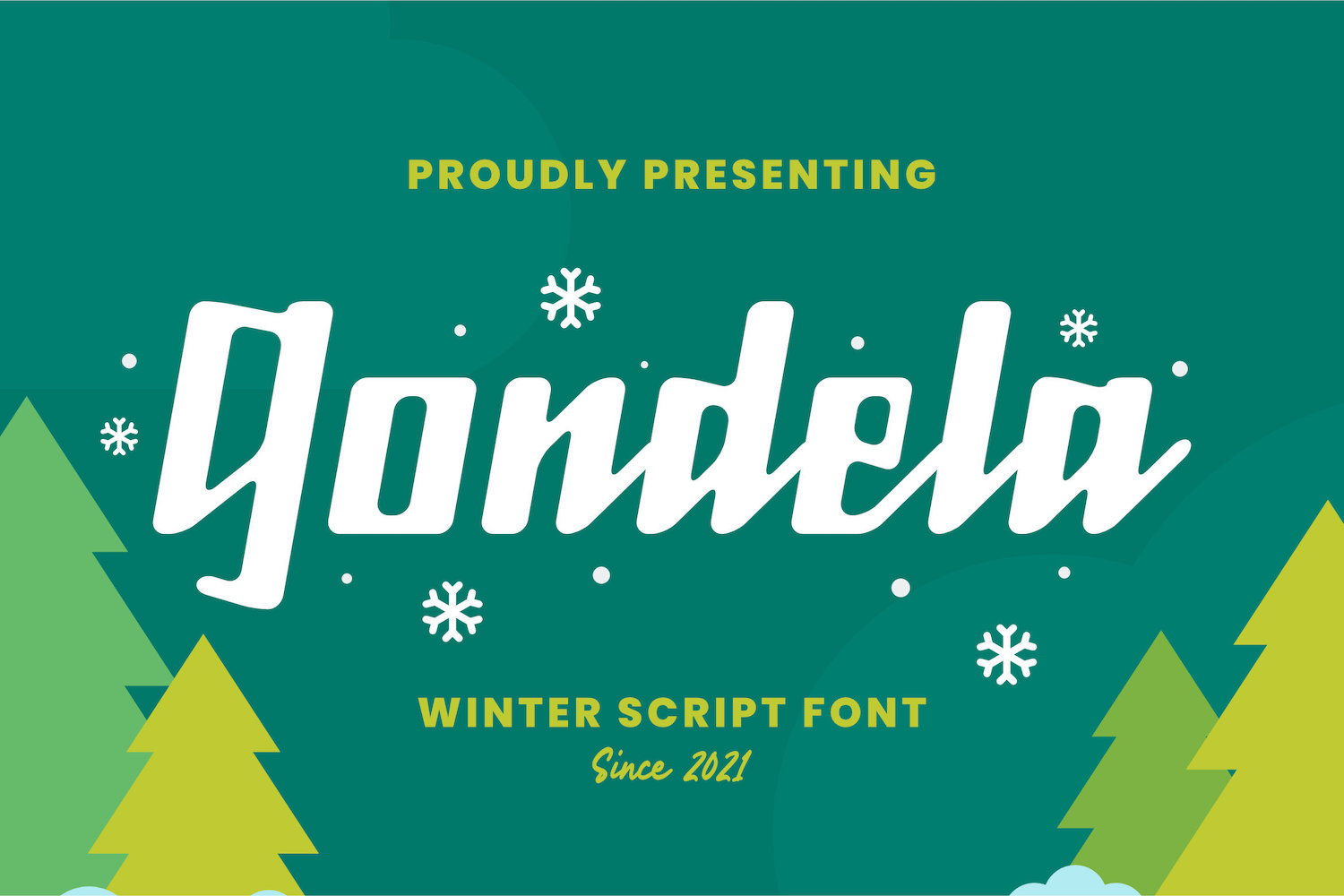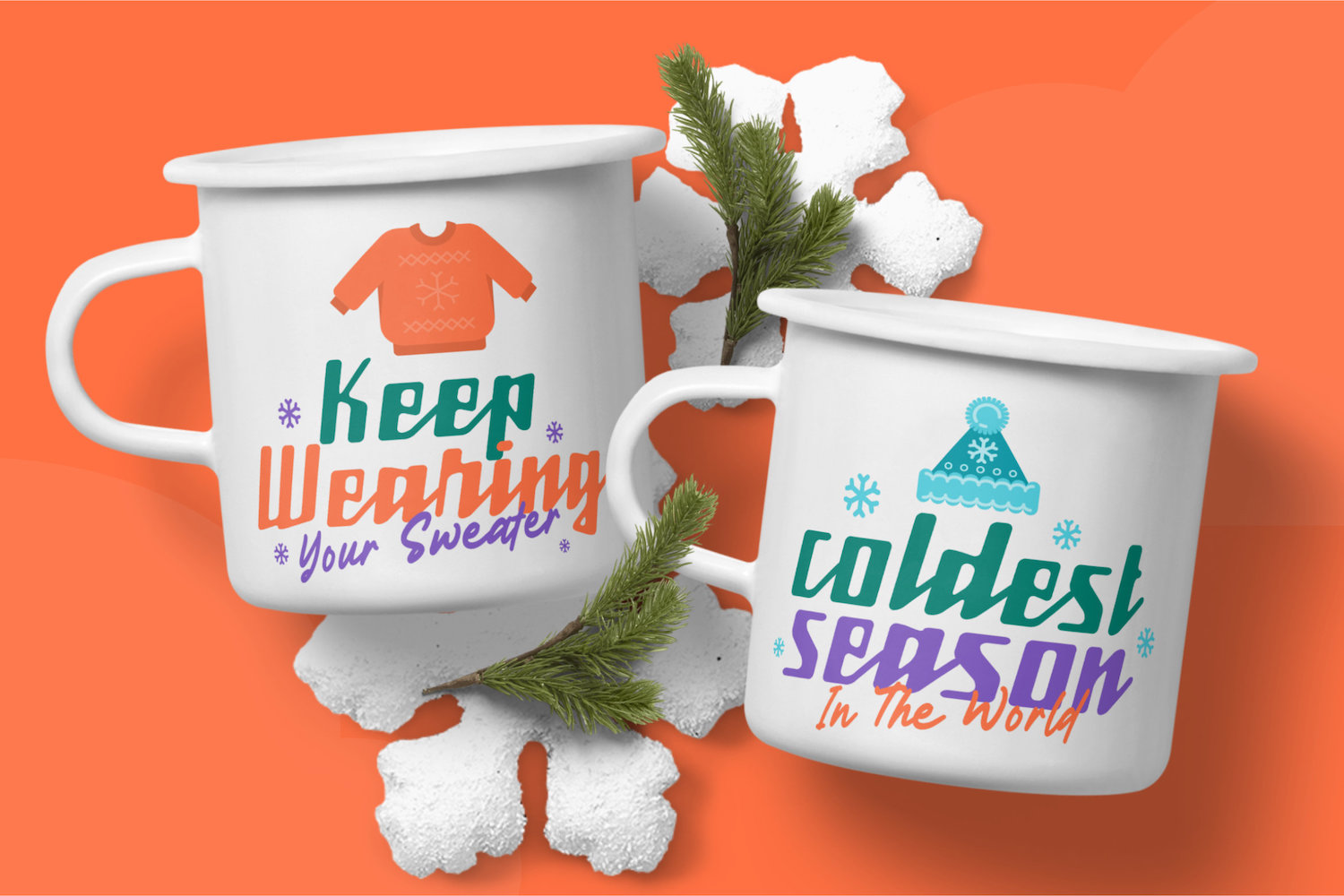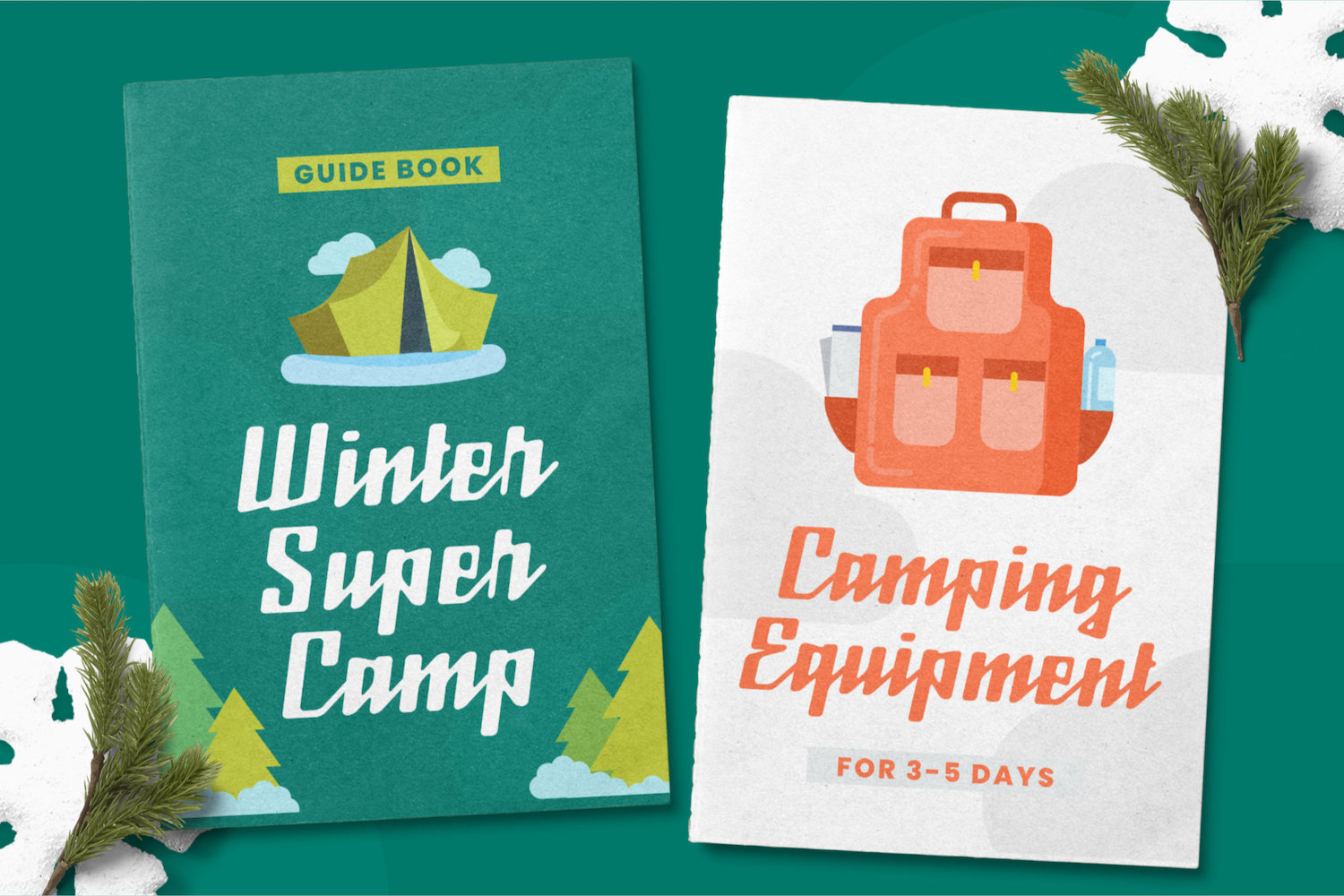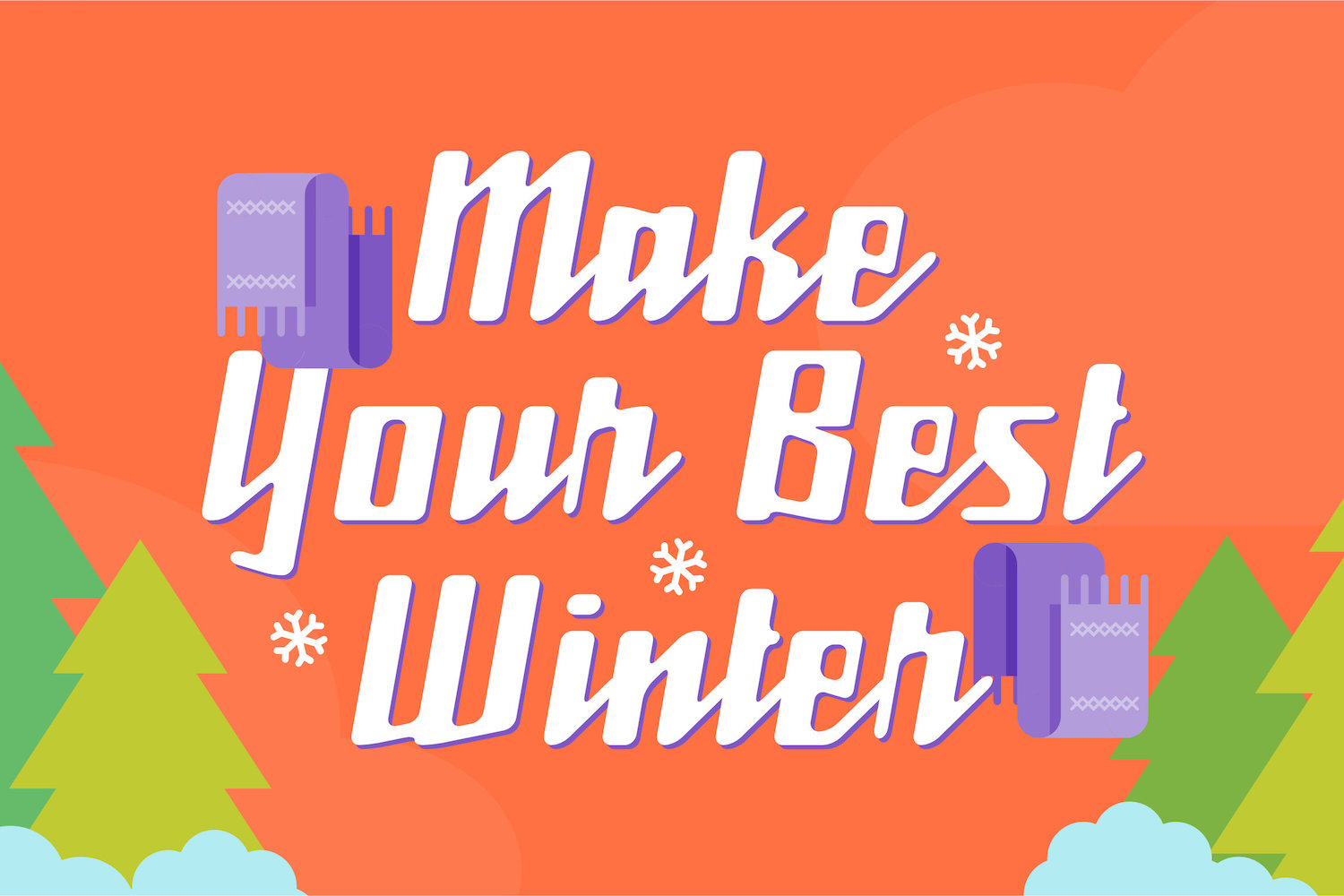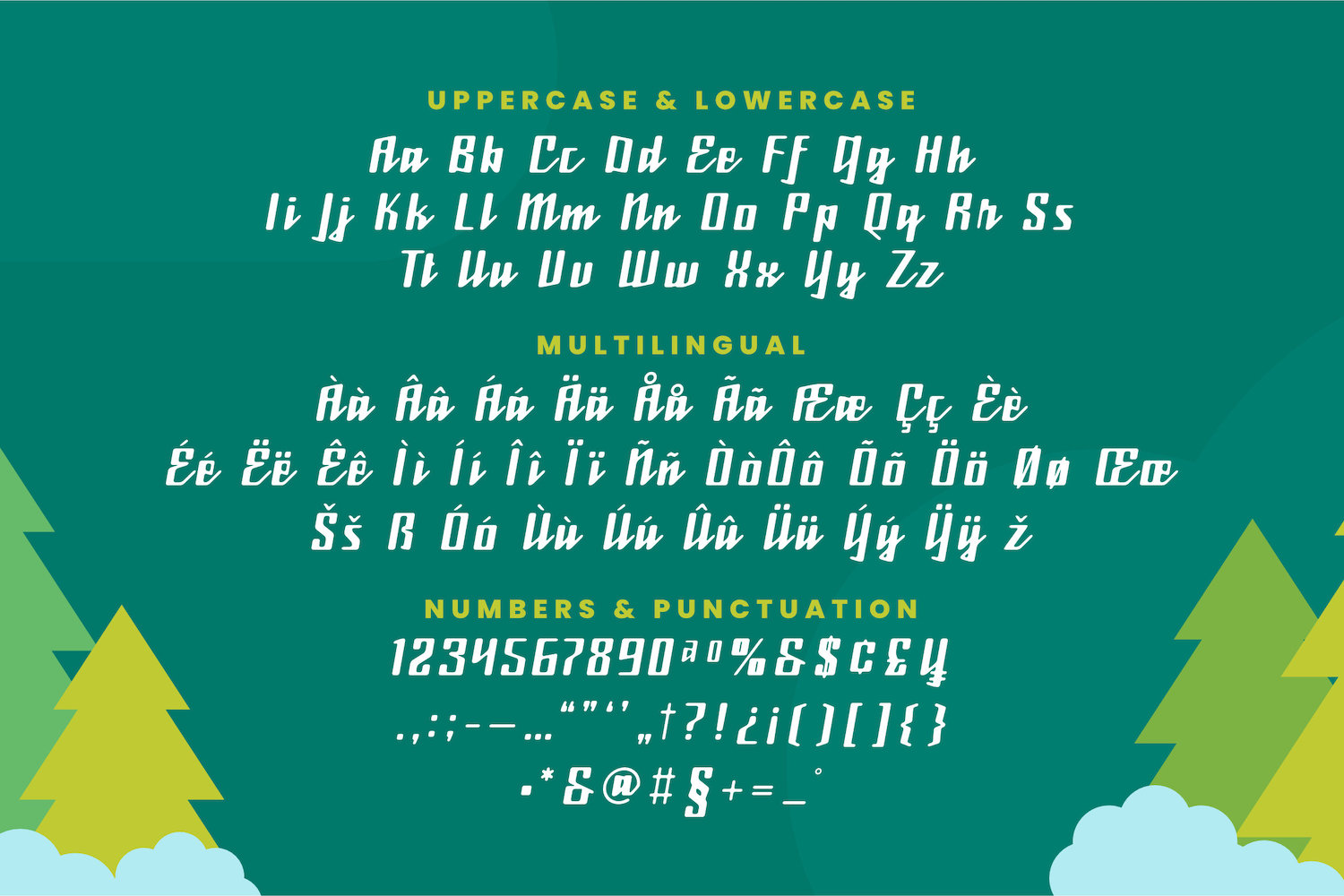
Gondela is a bold and adventurous winter script font designed to bring energy and warmth to your seasonal projects. With its dynamic strokes, sporty letterforms, and a touch of retro character, Gondela is perfect for branding, event posters, and holiday merchandise. The font captures the playful and active vibes of winter, from cozy camping nights to joyful snow adventures.
Equipped with uppercase, lowercase, multilingual support, and a full set of punctuation and numbers, Gondela provides versatility without compromising style. Whether you’re creating mugs, greeting cards, or outdoor apparel designs, Gondela adds a handcrafted and festive flair that stands out in winter-themed visuals.
Gondela